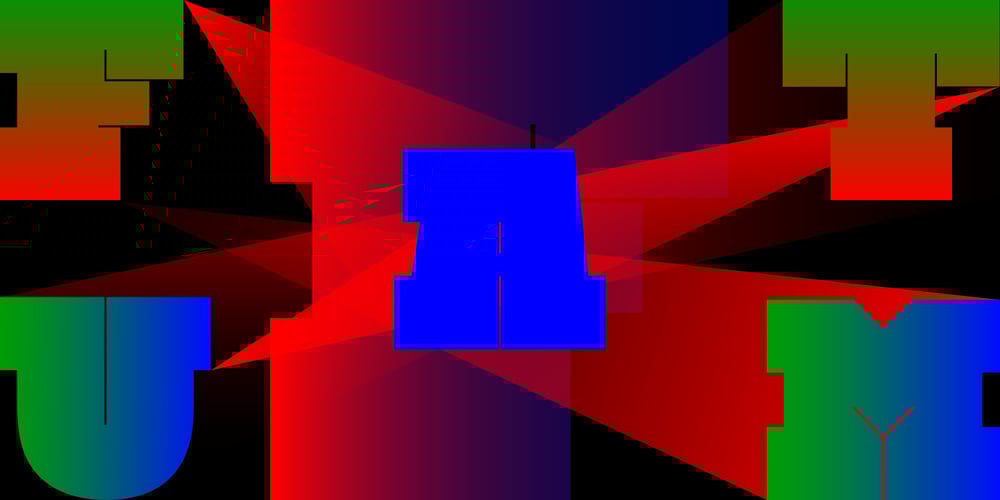
Fatum Font Family was designed by Morozova Sveta and published by ParaType. Fatum contains 1 styles and family package options. Fatum™ is a new original ultrablack slab serif typeface that was initiated by the impression of the TDC 2011 exhibition. Redundant stem thickness and closed character shapes make a feeling that counterspaces are the narrow slits cut in massive character bodies. Fatum can be used in large sizes in placards, playbills, in the headings of magazines, newspapers and Web-pages, as initials in book setting, for typographic illustrations and compositions. Ultrablack weight also gives a possibility to insert pictures, ornaments or other decorations into the contours of letters. This typeface was designed by Sveta Morozova and released by ParaType in 2013.